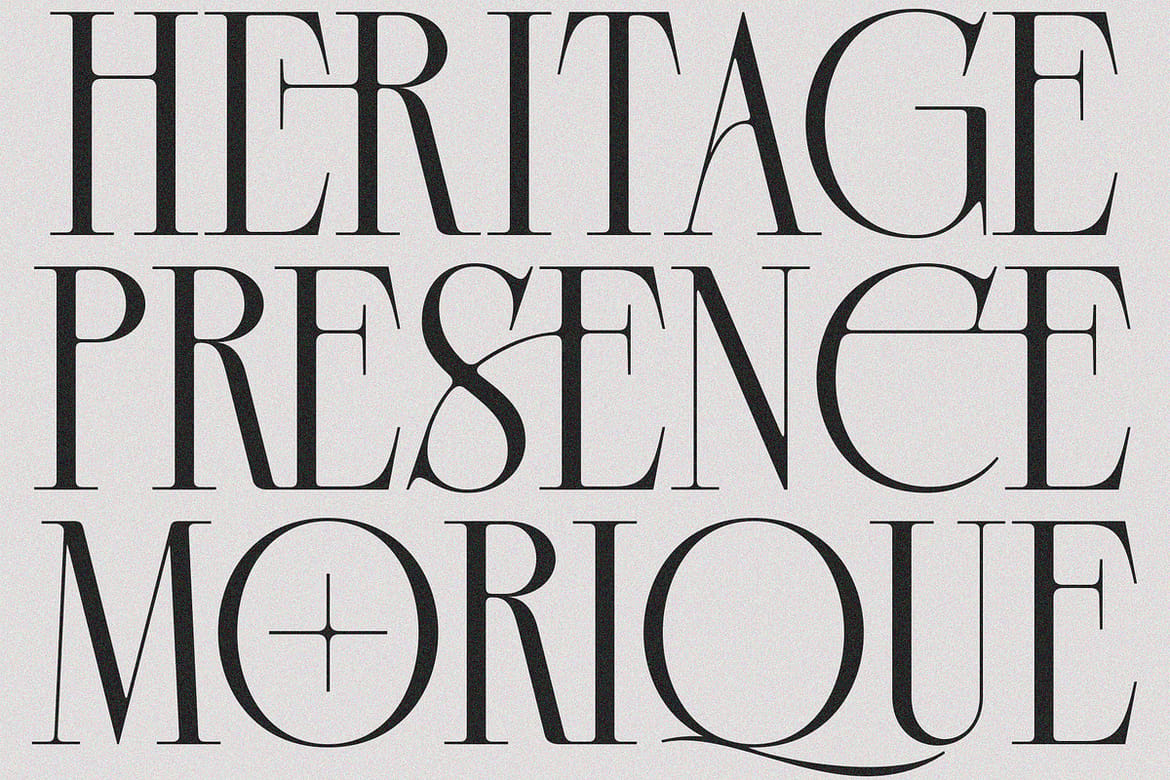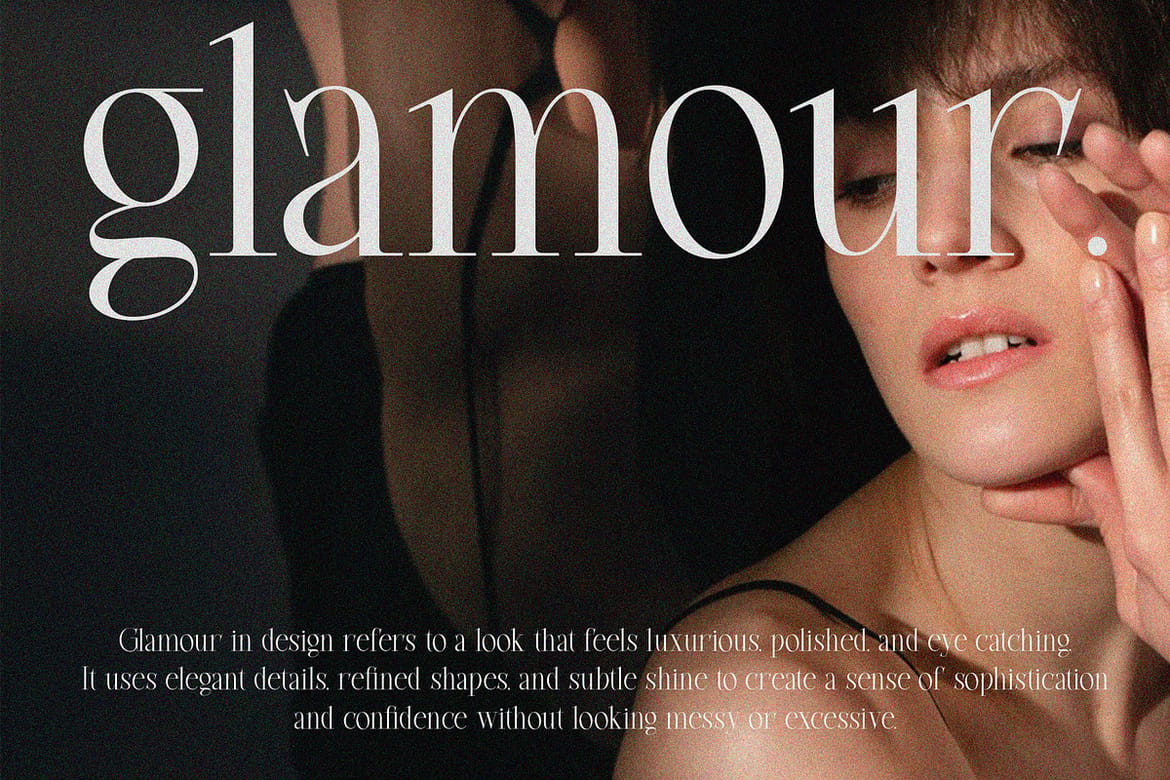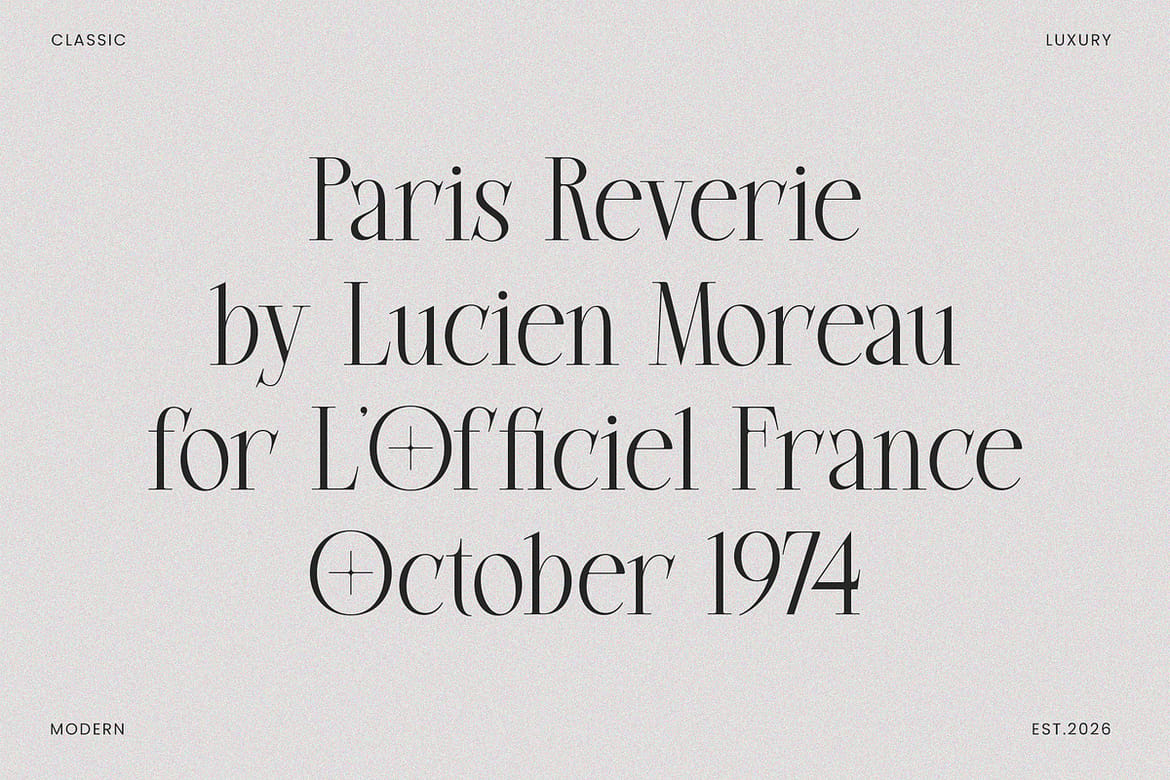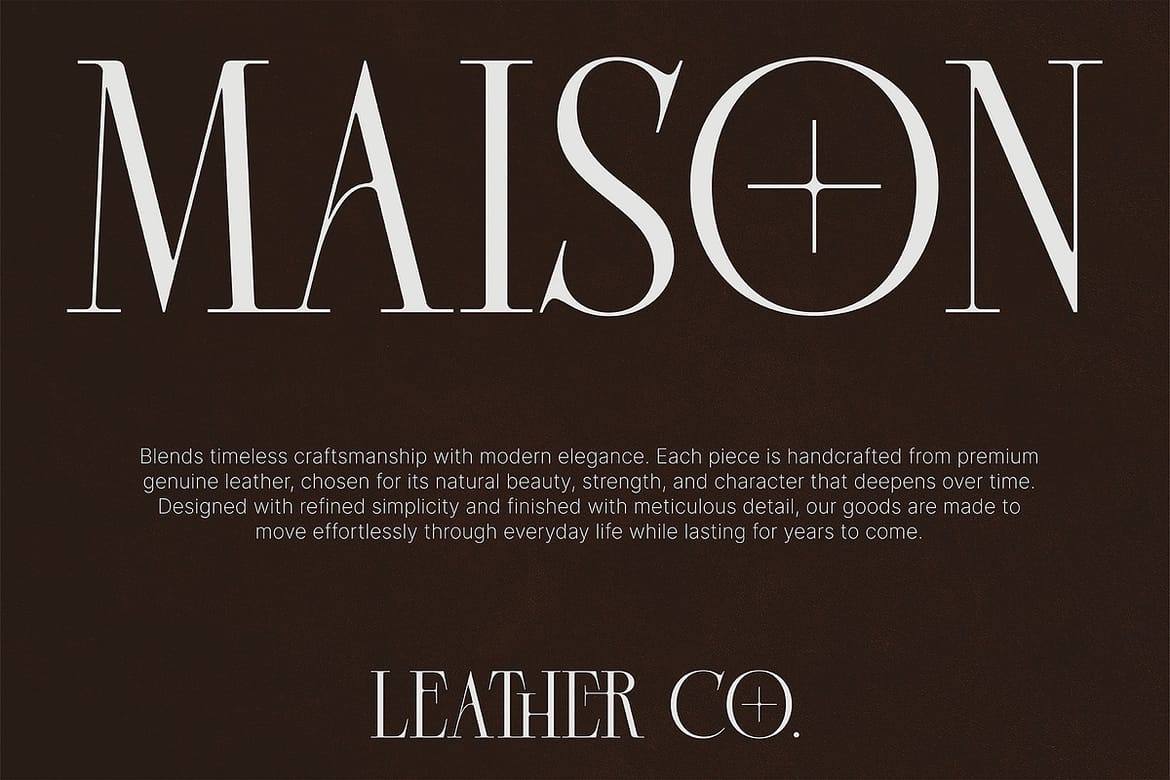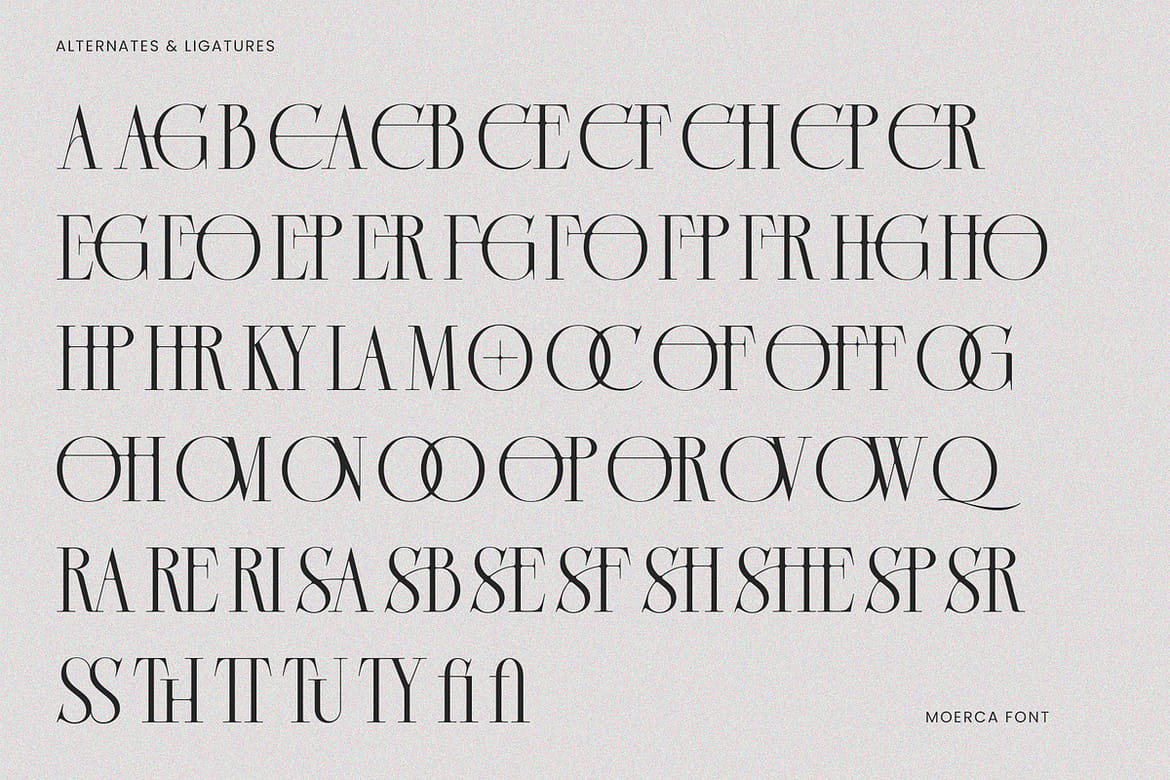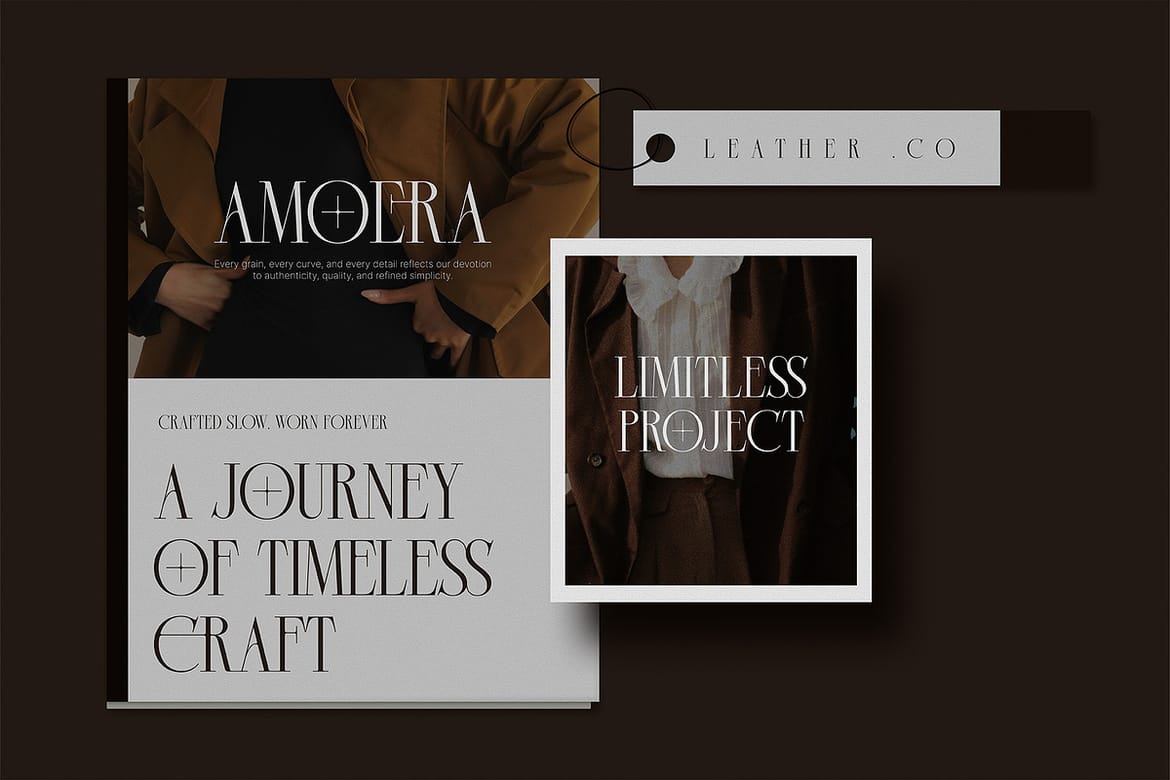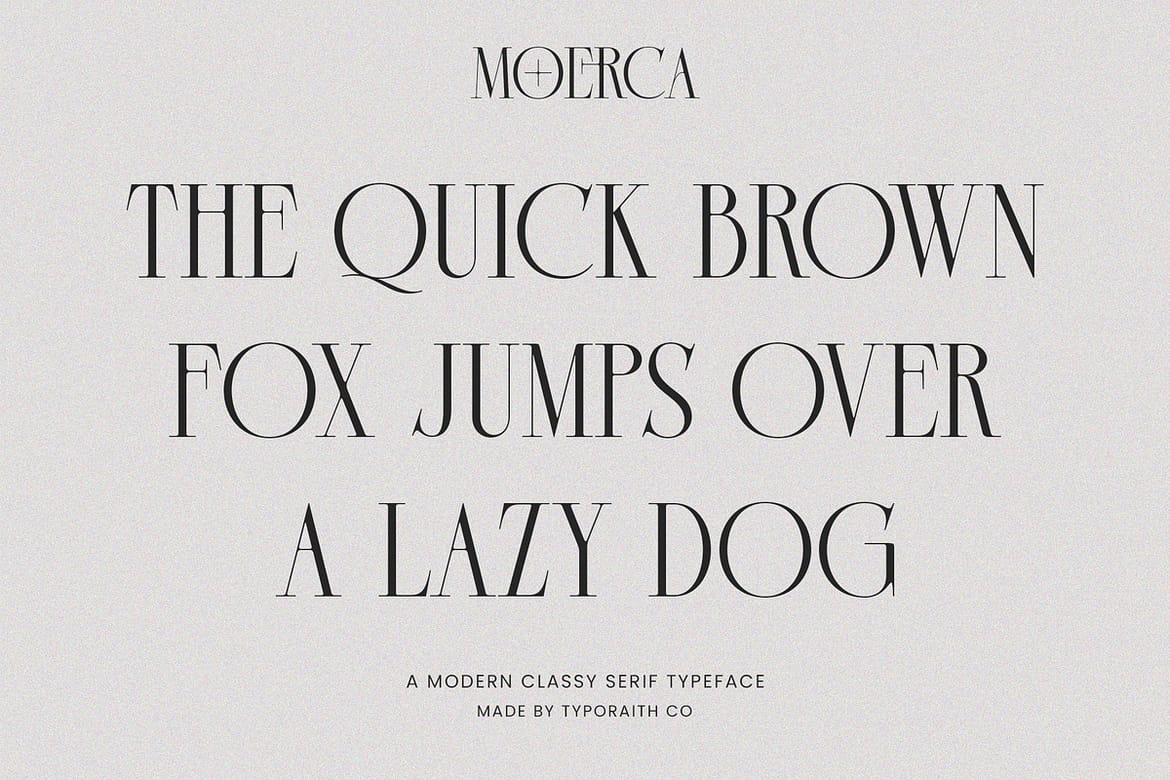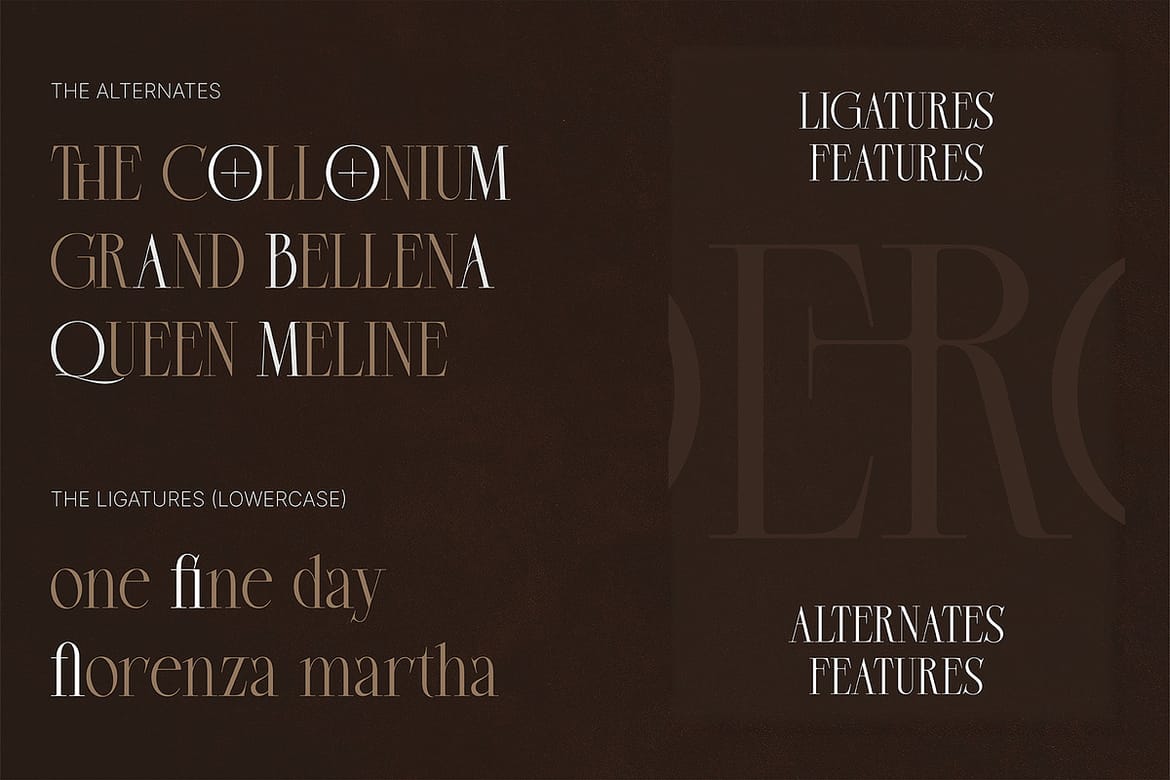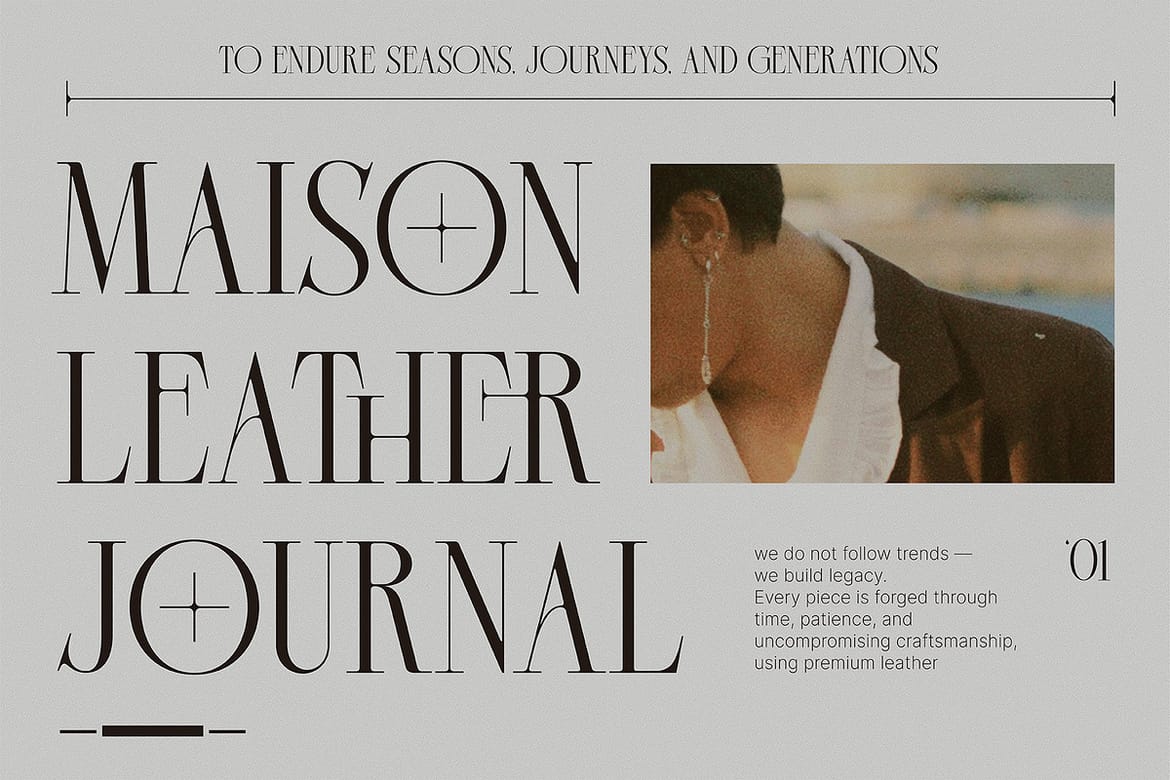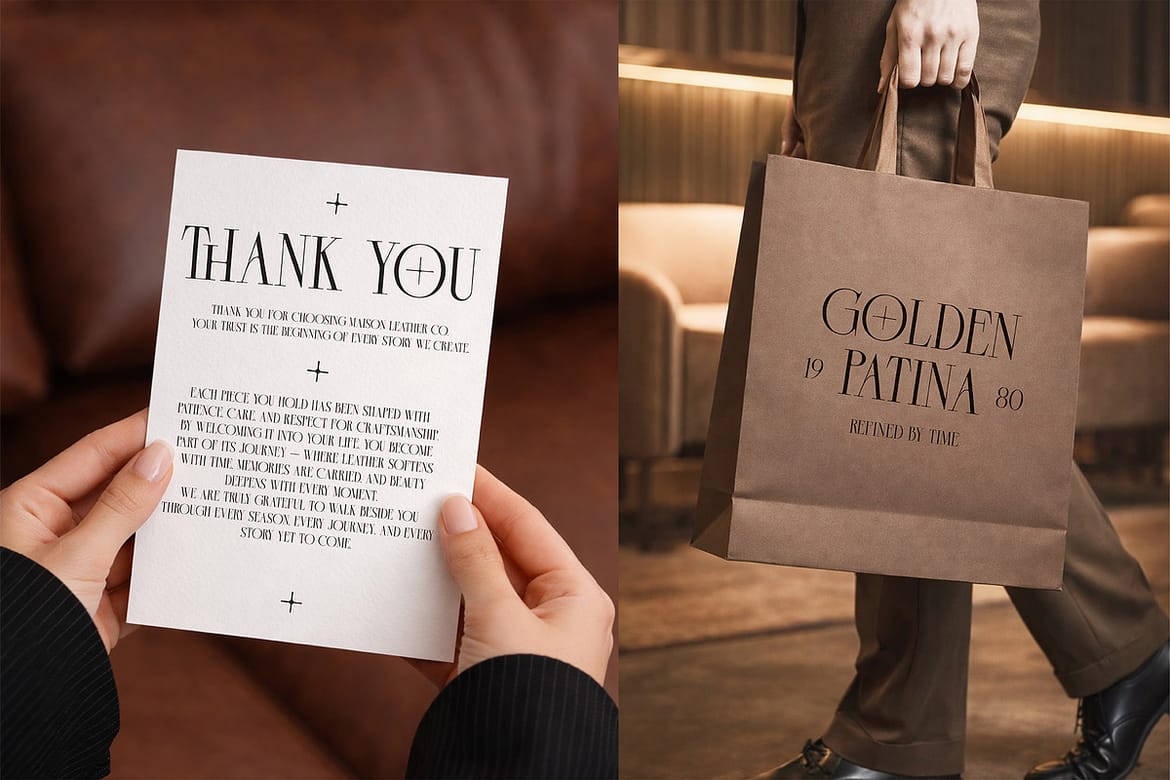
MOERCA is a modern classy serif typeface built for premium and high-end design projects. With elegant proportions, clean structure, and refined details, it delivers a polished editorial look that instantly elevates any layout.
This font works beautifully for logos, branding, magazines, wedding invitations, and luxury packaging where sophistication and readability matter equally.
MOERCA is versatile, easy to use, and designed to perform well across both print and digital media. Whether you're crafting a bold headline or a timeless brand identity, MOERCA provides a confident serif voice with a modern edge.
A perfect choice for designers seeking elegance, clarity, and professional results.
Features:
Elegant modern serif style
Classy, editorial-inspired letterforms
Clean, balanced proportions
Smooth curves with refined contrast
Easy to pair with sans-serif fonts
Punctuation & Numeral
Alternates & Ligatures
Multilingual Support
- Modern classy editorial serif typeface
- Alternates, ligatures & multilingual support
- Great for logos, branding & packaging